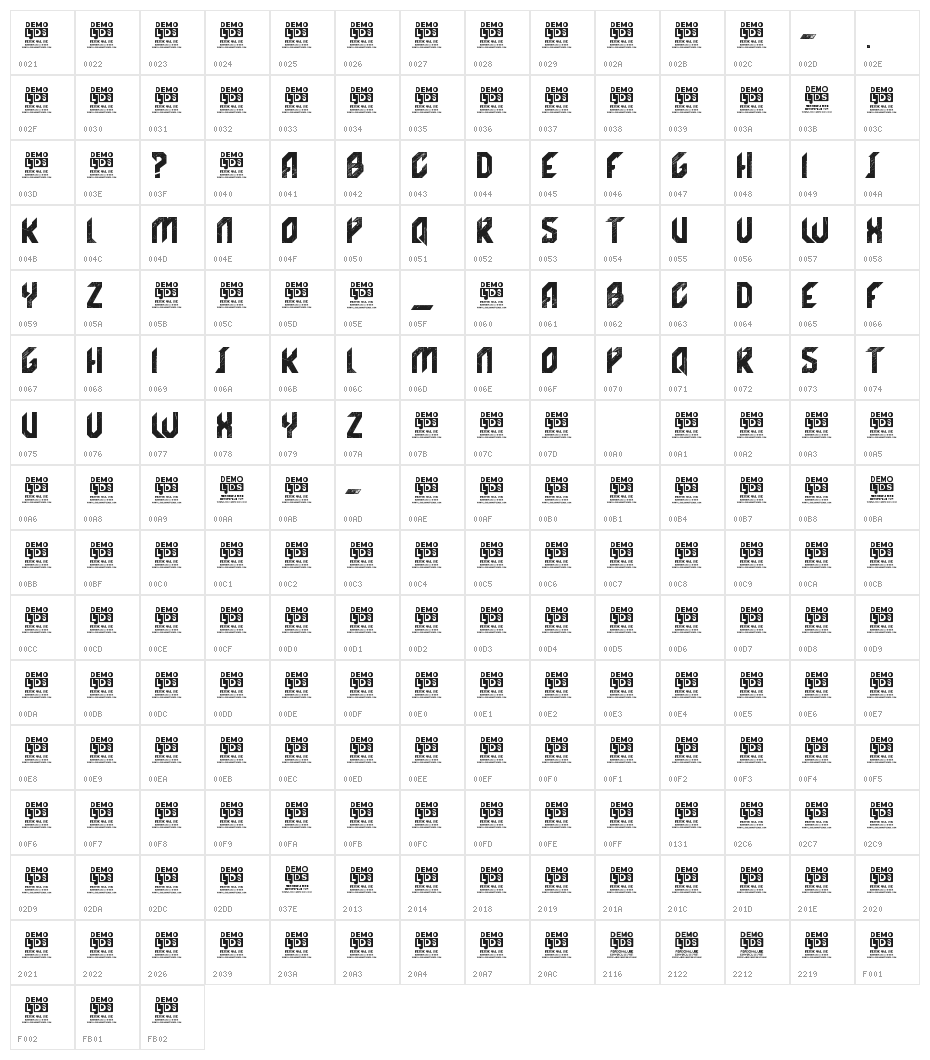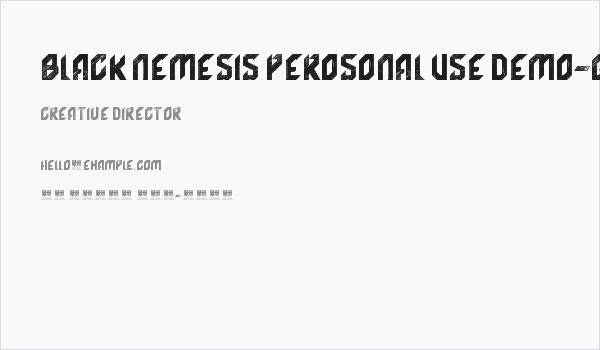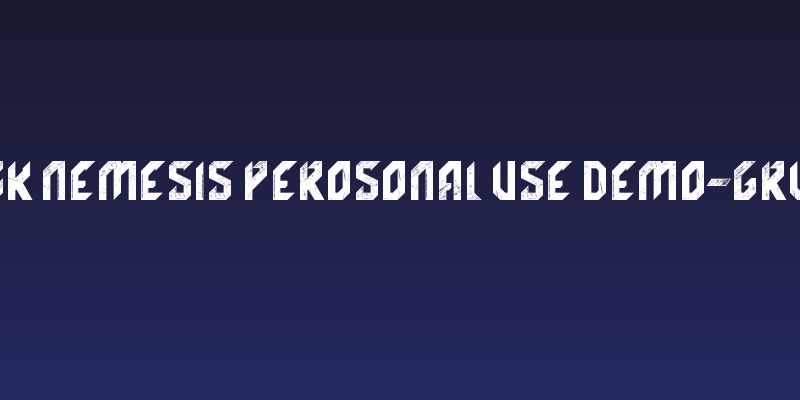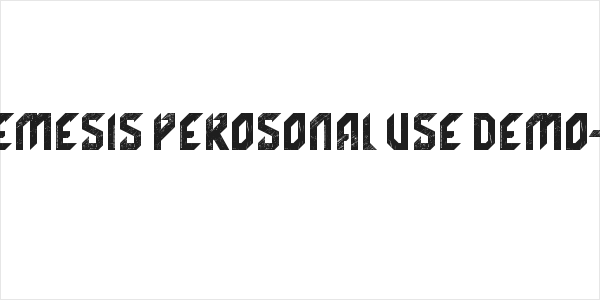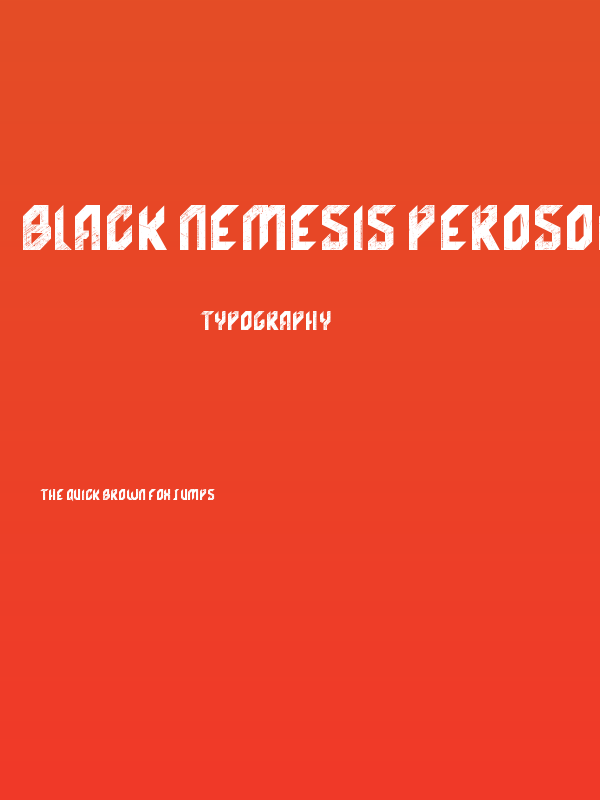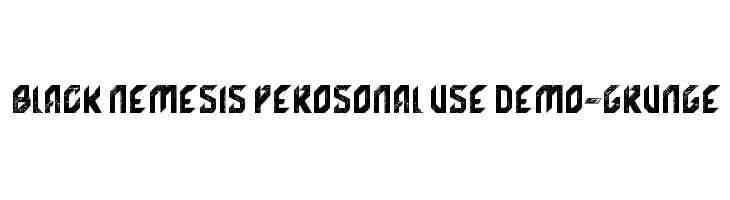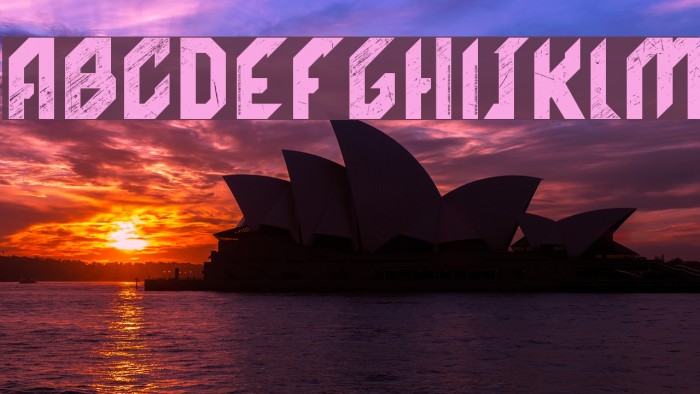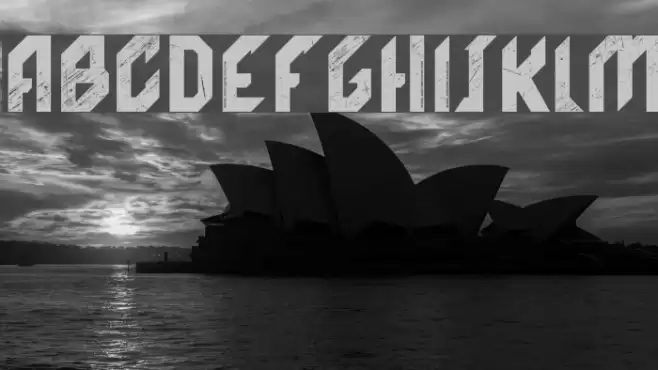
Black Nemesis Perosonal USE DEMO-Grunge Font
Black Nemesis Perosonal USE DEMO-Grunge Description
This font features a bold, angular design with a distressed, grunge texture that gives it a rugged and edgy appearance. The characters are sharply defined with geometric shapes, creating a sense of strength and impact. The texture adds a worn, vintage feel, making it ideal for projects that require a gritty, urban aesthetic. The uppercase letters are consistent in height and width, providing a uniform look across the typeface. This font is particularly suitable for headlines, posters, and branding that aim to convey a sense of boldness and rebellion.
| Overall Style | Grunge, Urban, Edgy |
| Use Case | Headlines, Posters, Branding |
| Proposed Projects | Ideal for music album covers, urban-themed posters, edgy branding, and streetwear designs. |